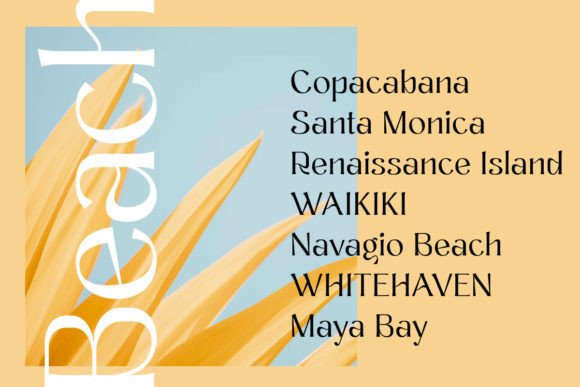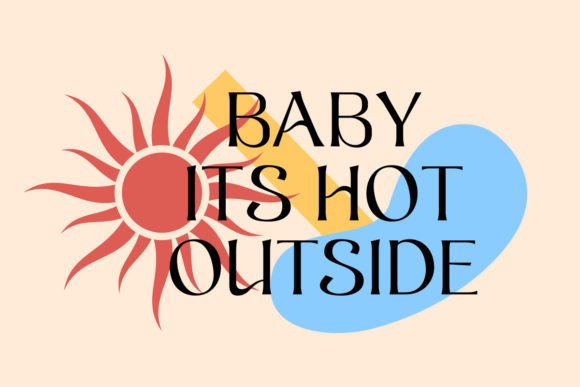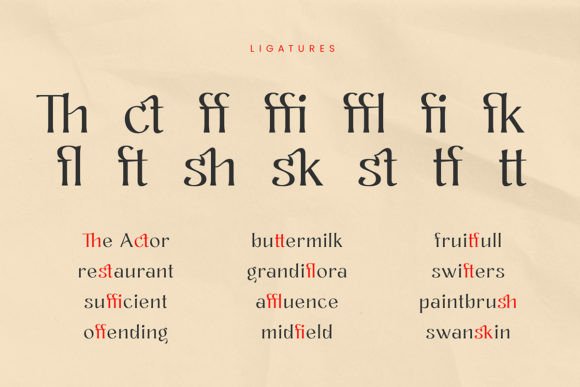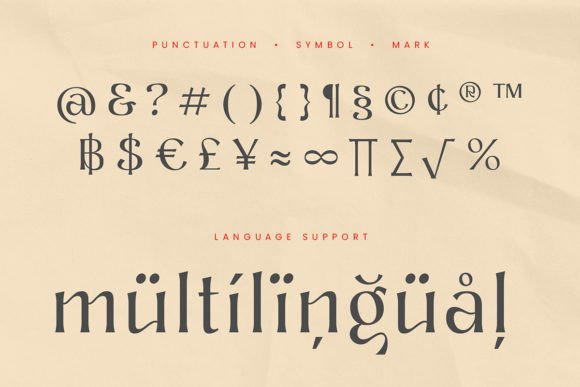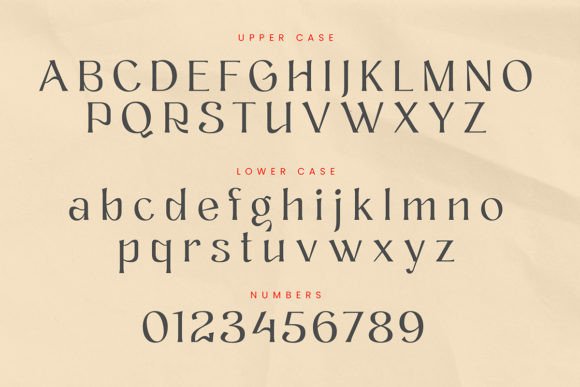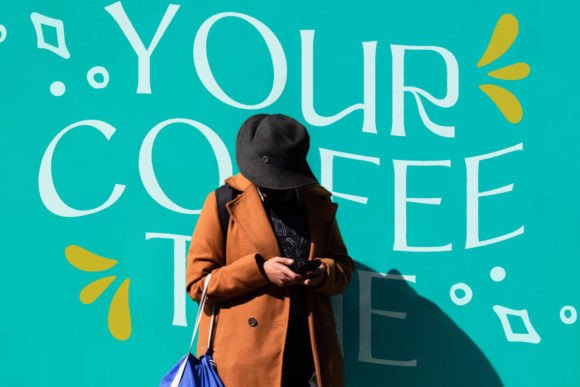
Introduction to Reginda Font Font
Fonts play a crucial role in design, and the Reginda Font font is a typeface that brings both character and versatility to any project. Whether you’re working on a branding project, a website, or a print design, the Reginda Font font offers a unique style that can elevate your work.
Reginda is a psychedelic-inspired sans font.
Itβs trendy, stylish, and playful Thin and curve lines mix with smooth thick curves creating unique glyphs that are perfect for interesting wordmarks and typographic posters.
Key Features of Reginda Font Font
Why Choose Reginda Font Font?
The Reginda Font font is more than just a typeface β it’s a design tool that helps you communicate your message with style and clarity. Its unique character set and versatile design make it suitable for a wide range of applications, from elegant invitations to bold headlines.
With its carefully crafted letterforms and balanced proportions, the Reginda Font font ensures readability and visual appeal across all mediums.
What makes Reginda Font font special?
The Reginda Font font stands out with its unique design, exceptional readability, and versatility across various design applications.